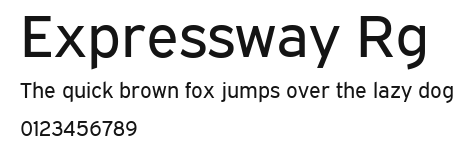
• Font Name: Expressway Rg
• Designer: Ray Larabie
About Expressway Rg.ttf
Expressway Rg.ttf is a modern, elegant sans-serif font designed for ultimate readability and visual harmony. Perfect for branding, headlines, web design, and print materials.